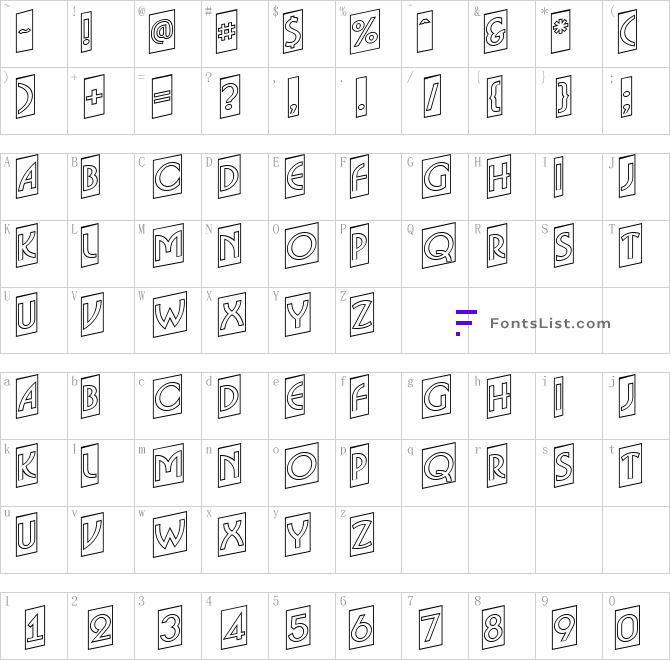
- Font Name:a_BosaNovaCmUpOtl
a_BosaNovaCmUpOtl.ttf is a very beautiful artistic font, a_BosaNovaCmUpOtl.ttf is widely used in the design and printing of various books and pictures,a_BosaNovaCmUpOtl.ttf has a strong visual impact,a_BosaNovaCmUpOtl.ttf is a commonly used font in newspapers, magazines and books, and is used in posters, e-commerce Poster design, store design, logo design, font design and other fields.a_BosaNovaCmUpOtl.